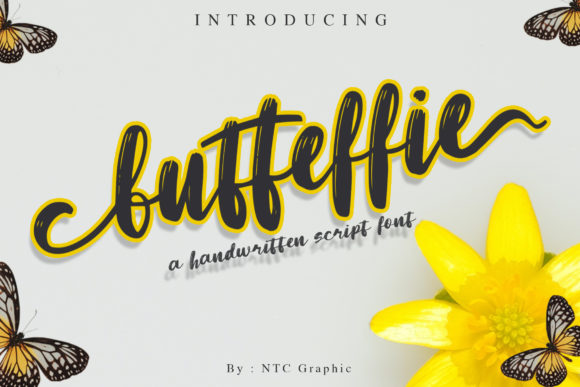
Explore the beauty of Butteffie, a captivating script font that adds a touch of whimsy and elegance to your designs. Born from the strokes of a brush pen, this font exudes a free-spirited charm that instantly draws the eye.
With its clean lines and playful curves, Butteffie is not only visually stunning but also incredibly versatile. It effortlessly elevates any design, from chic logos to enchanting branding materials, captivating social media posts, and charming DIY projects.
Whether you're a seasoned graphic designer or a creative enthusiast, Butteffie is the perfect font to add a touch of magic to your work. Its versatility makes it a must-have for capturing attention, evoking emotions, and leaving a lasting impression.
Let Butteffie be your guide to a world of creative possibilities. Its captivating charm and endless applications will ignite your imagination and empower you to create designs that truly stand out. Embrace the allure of Butteffie today and watch your projects flourish with beauty and enchantment.